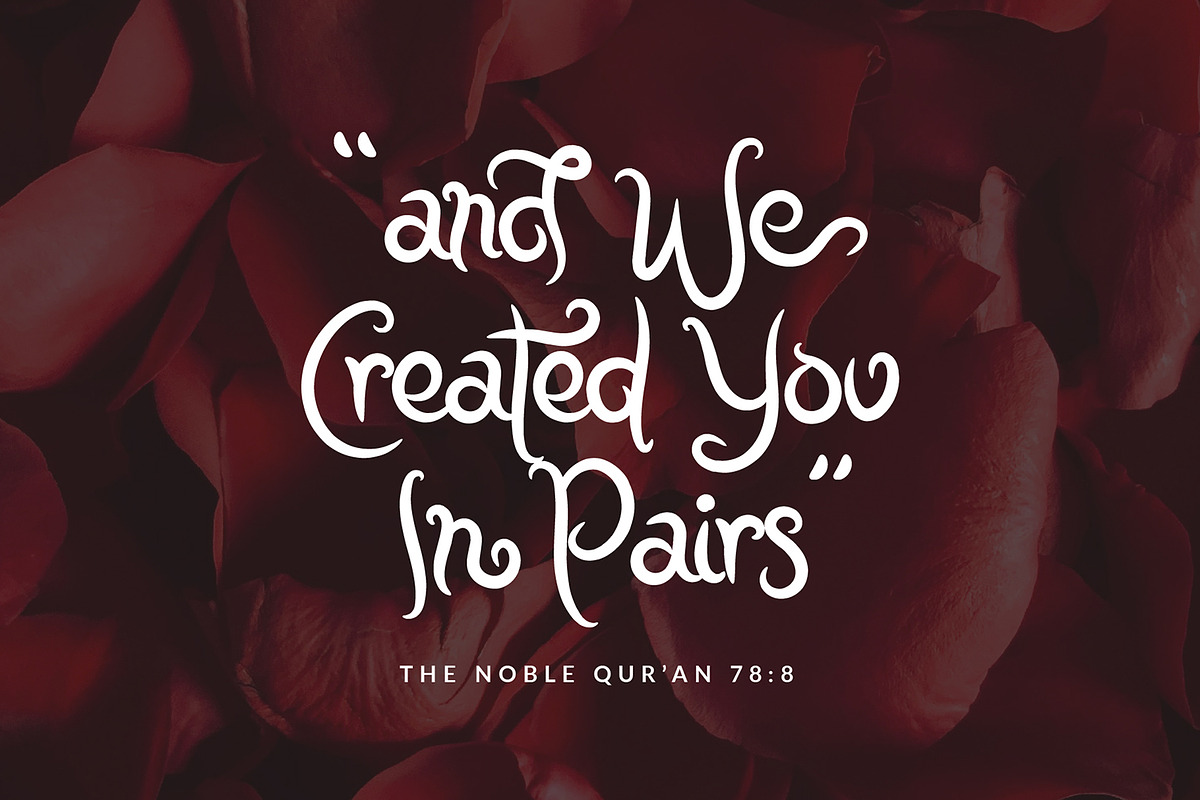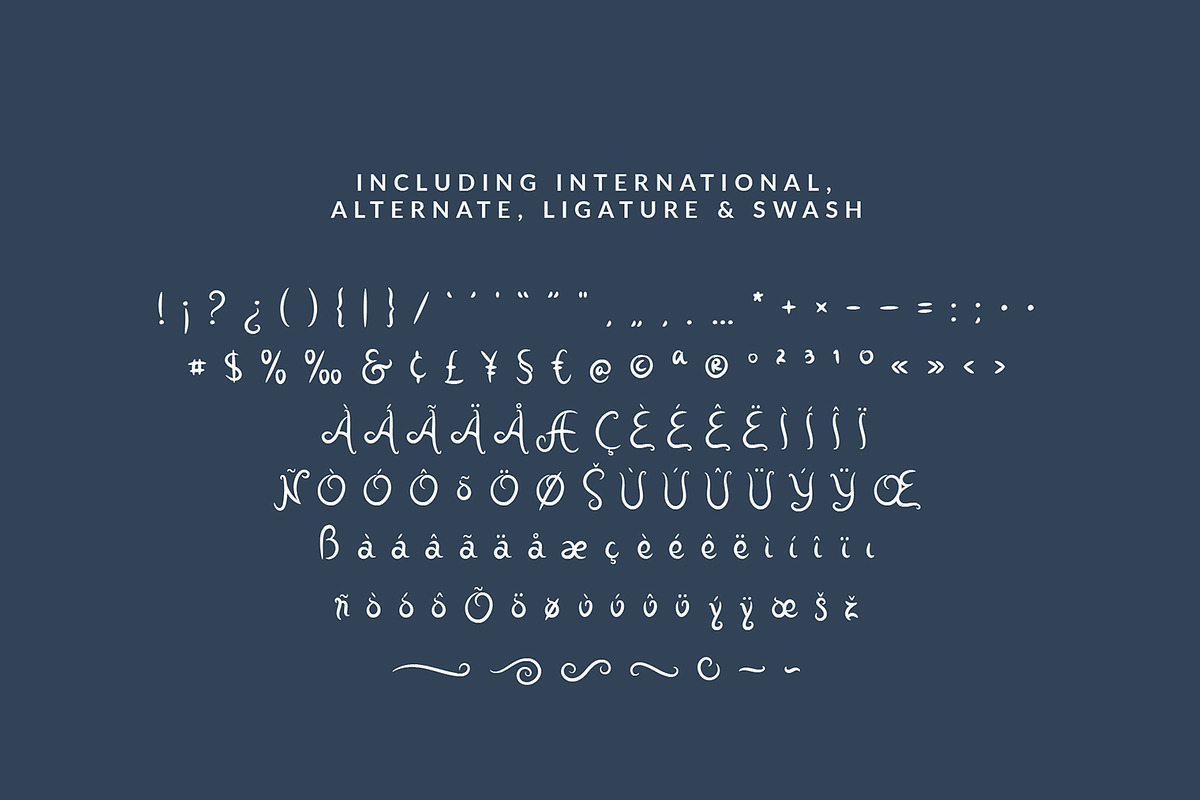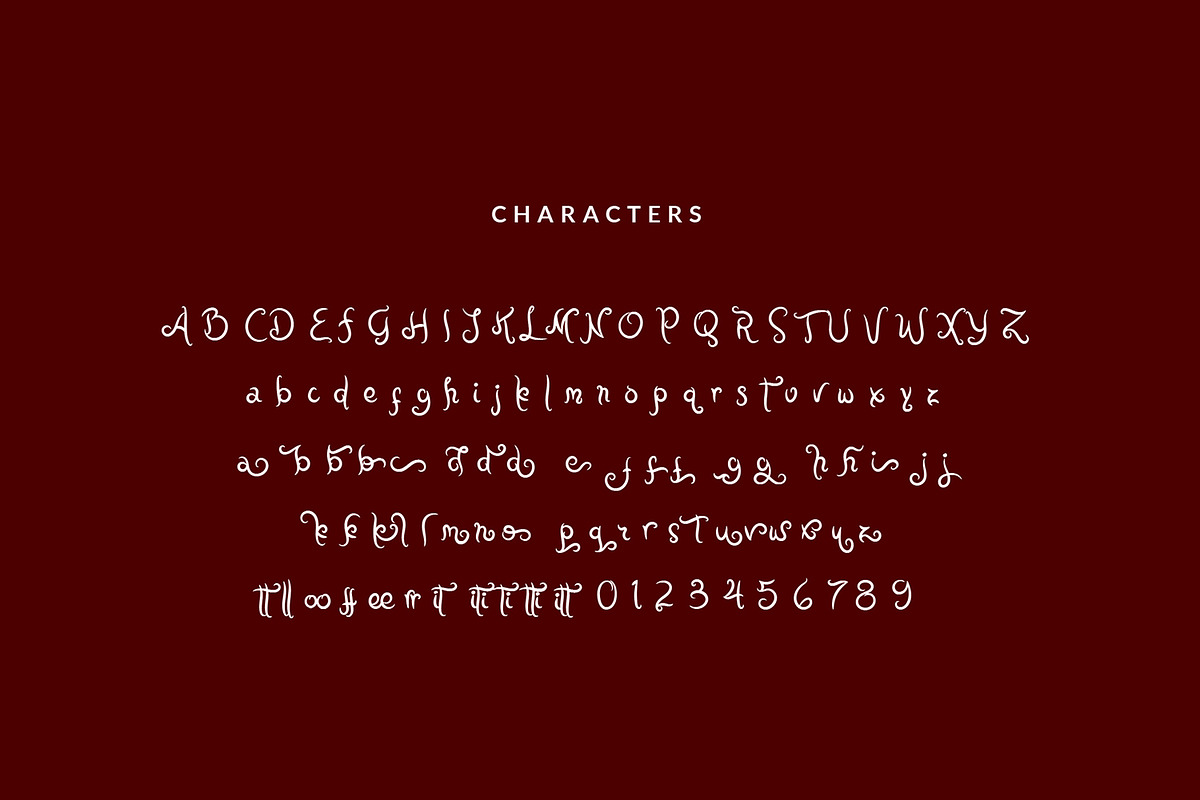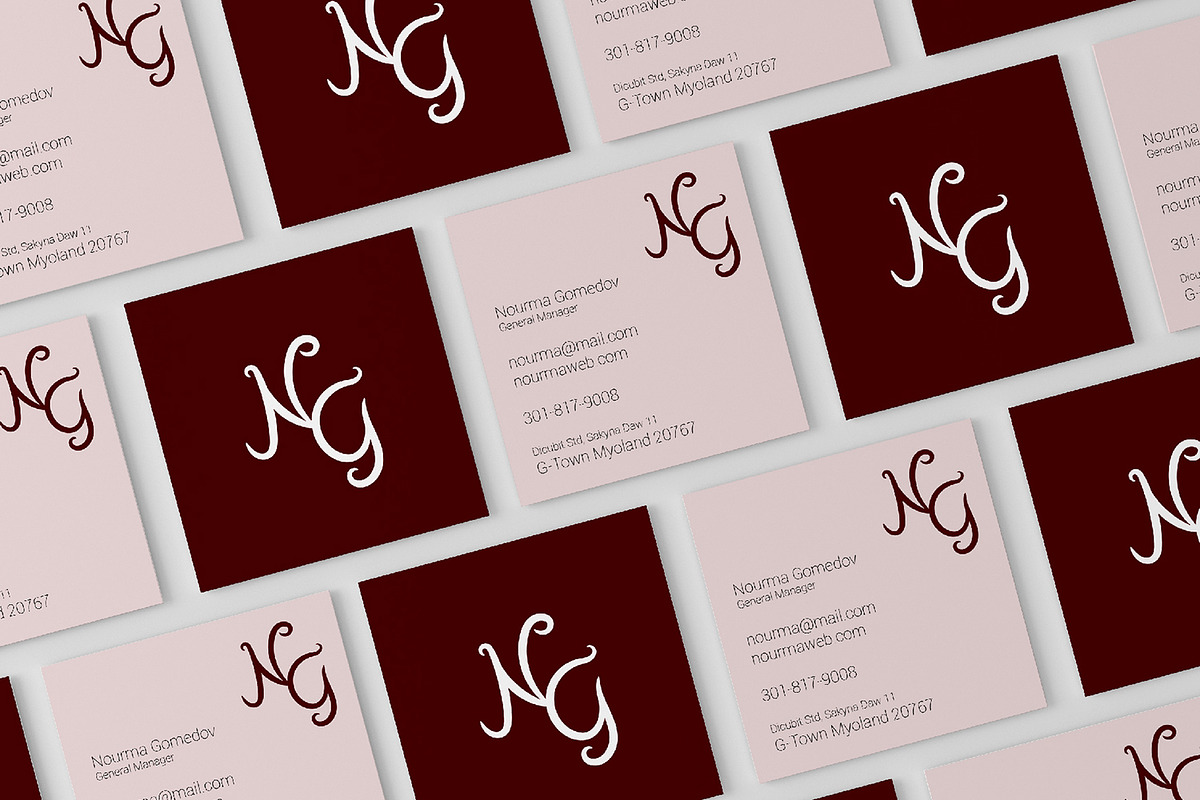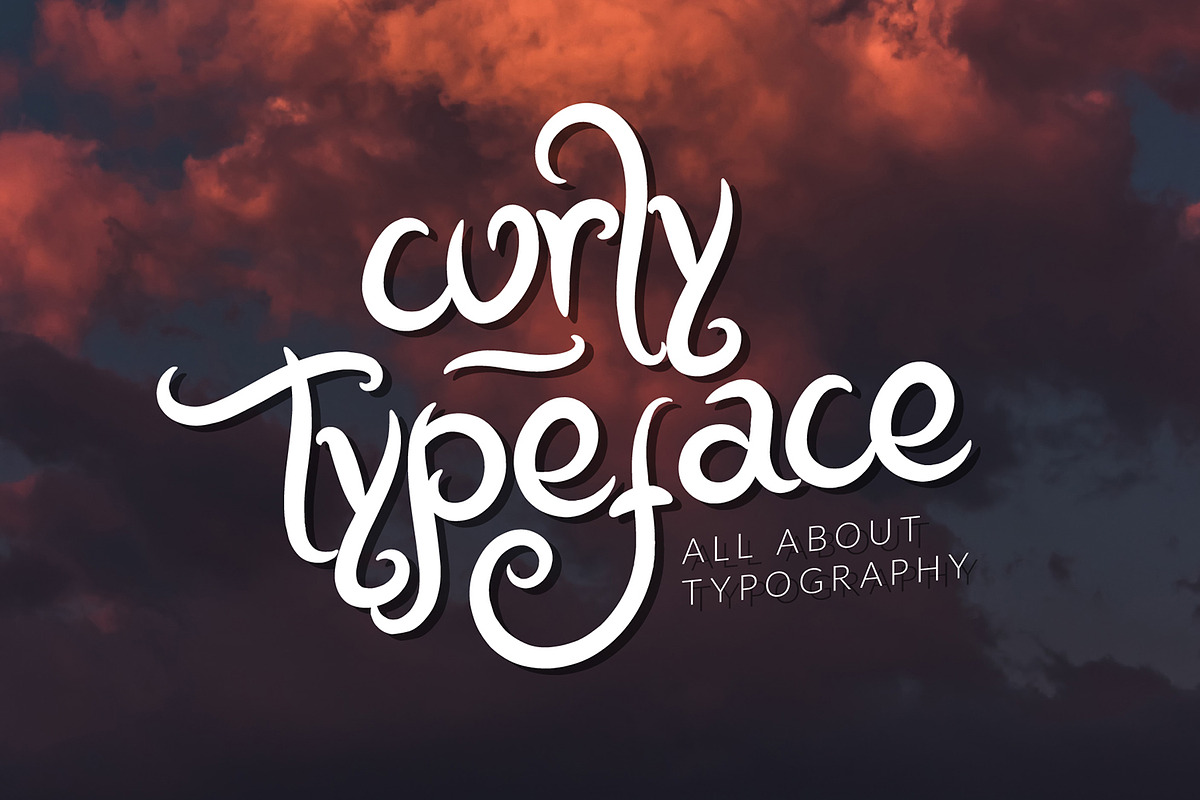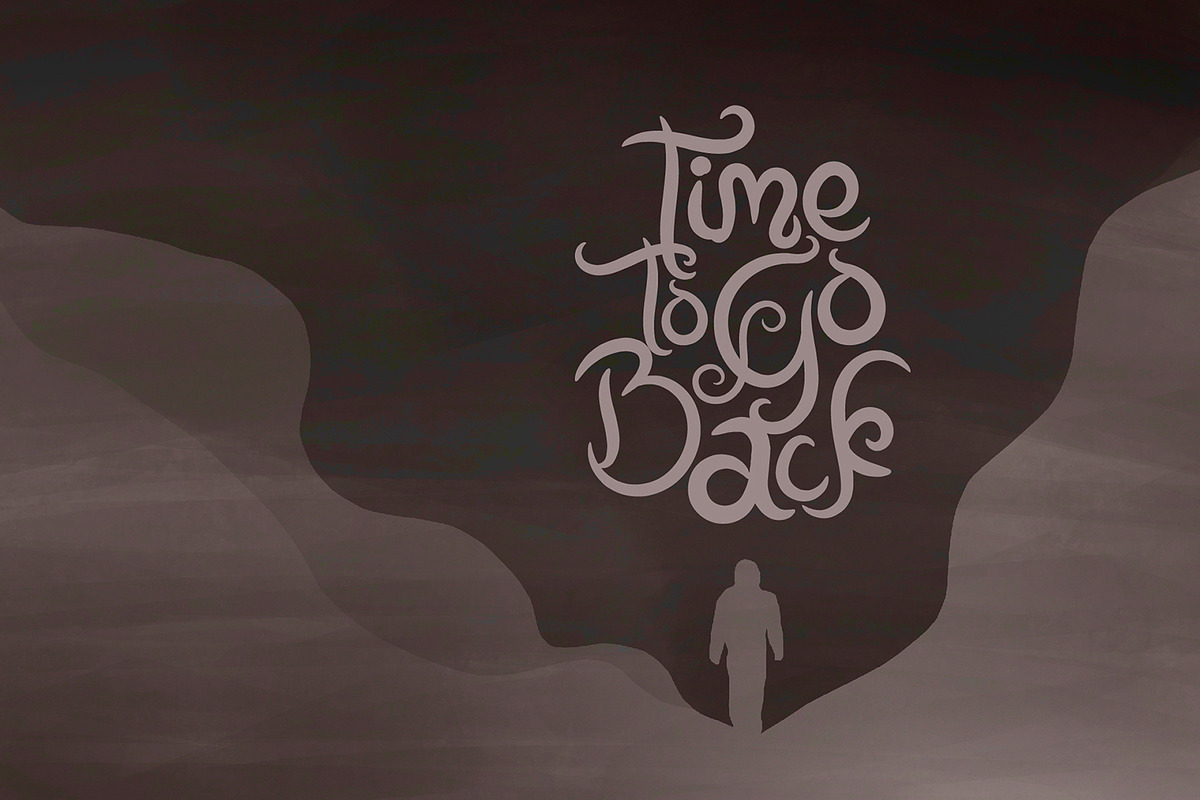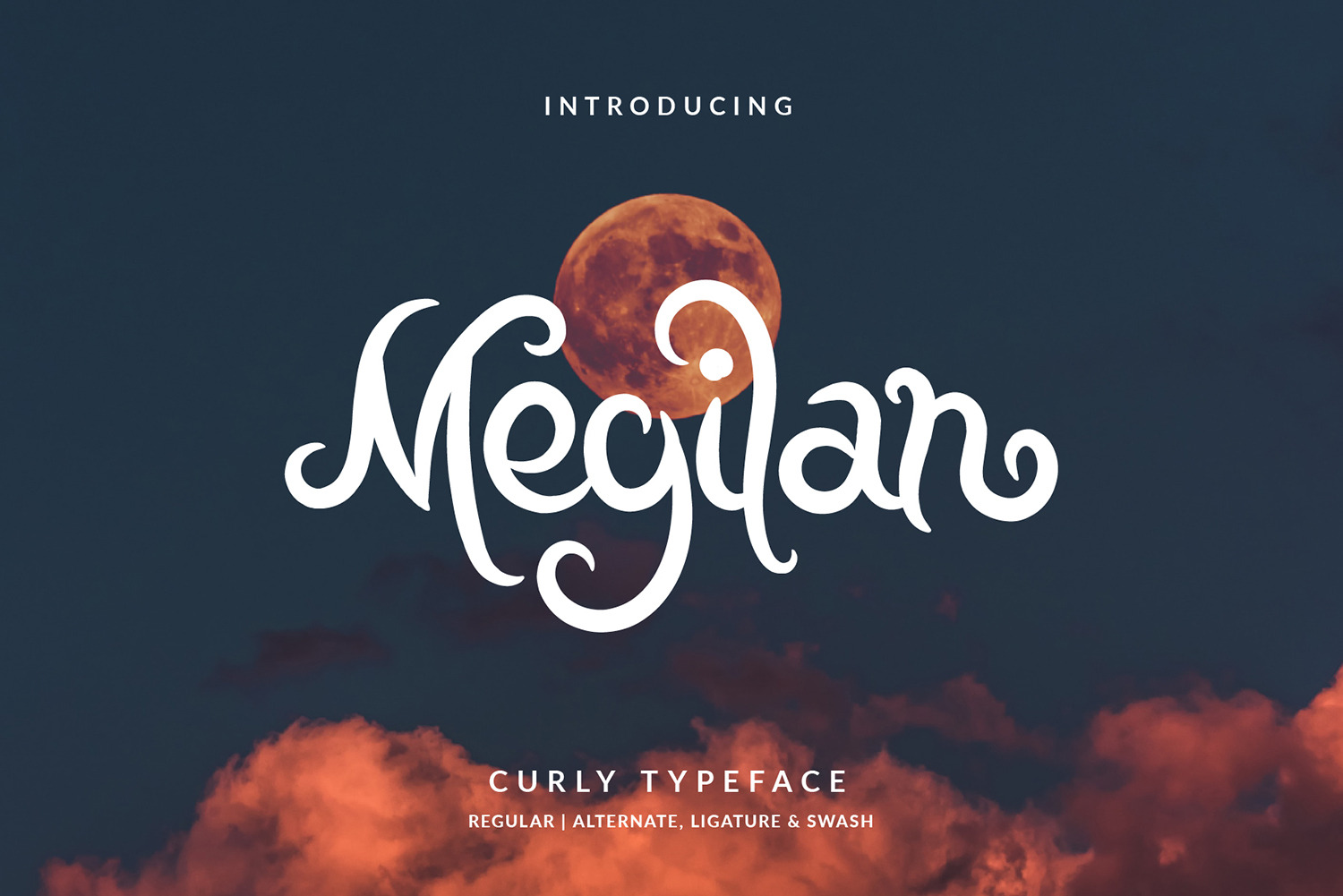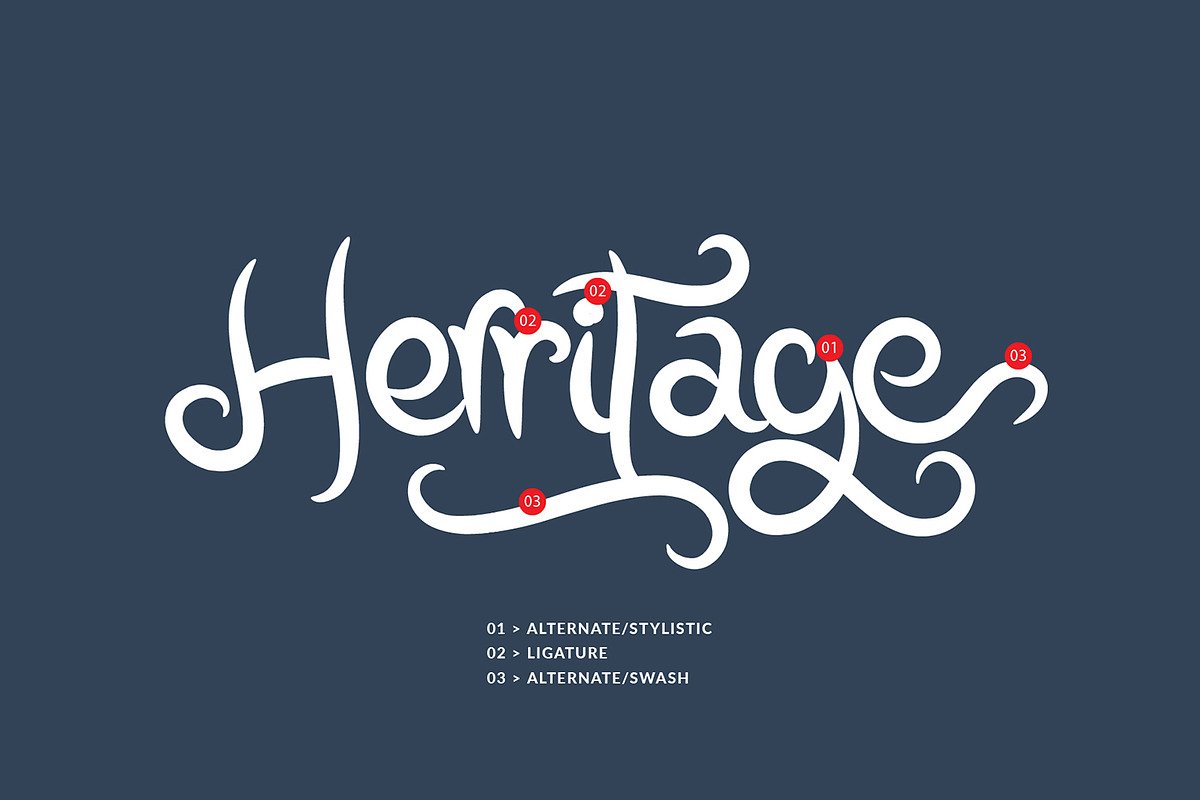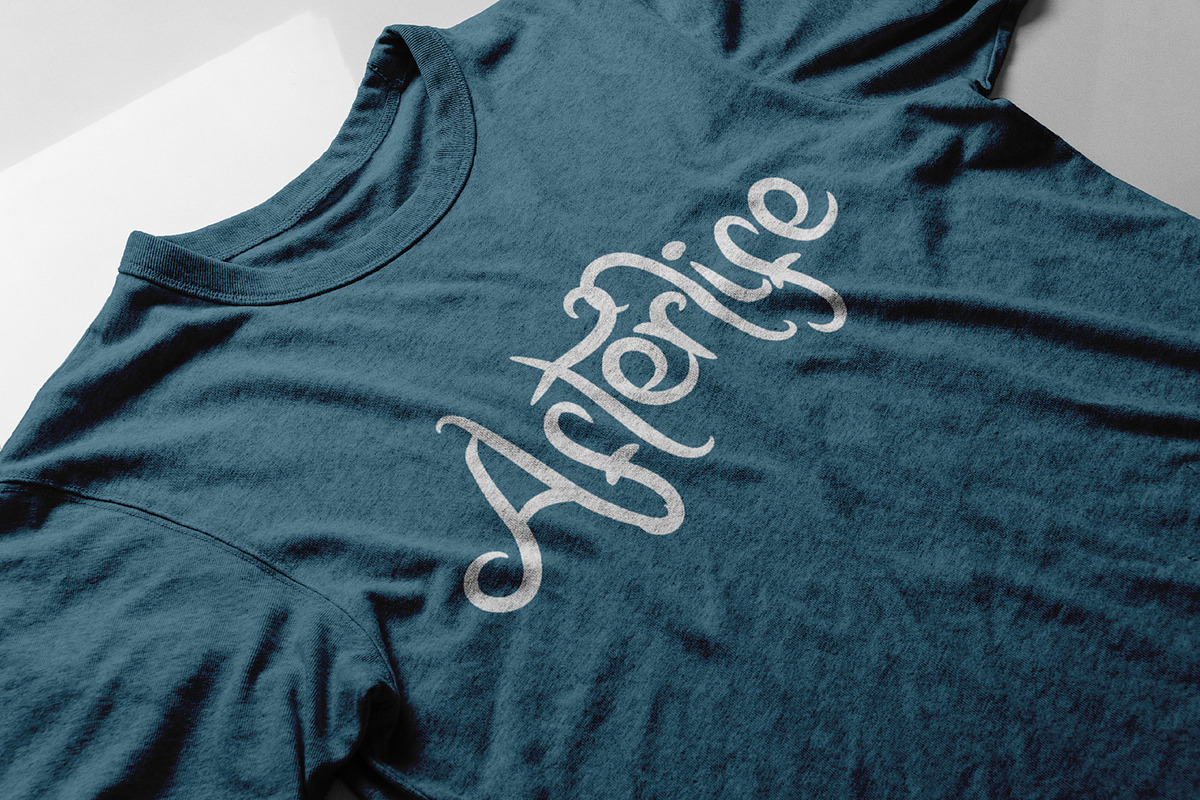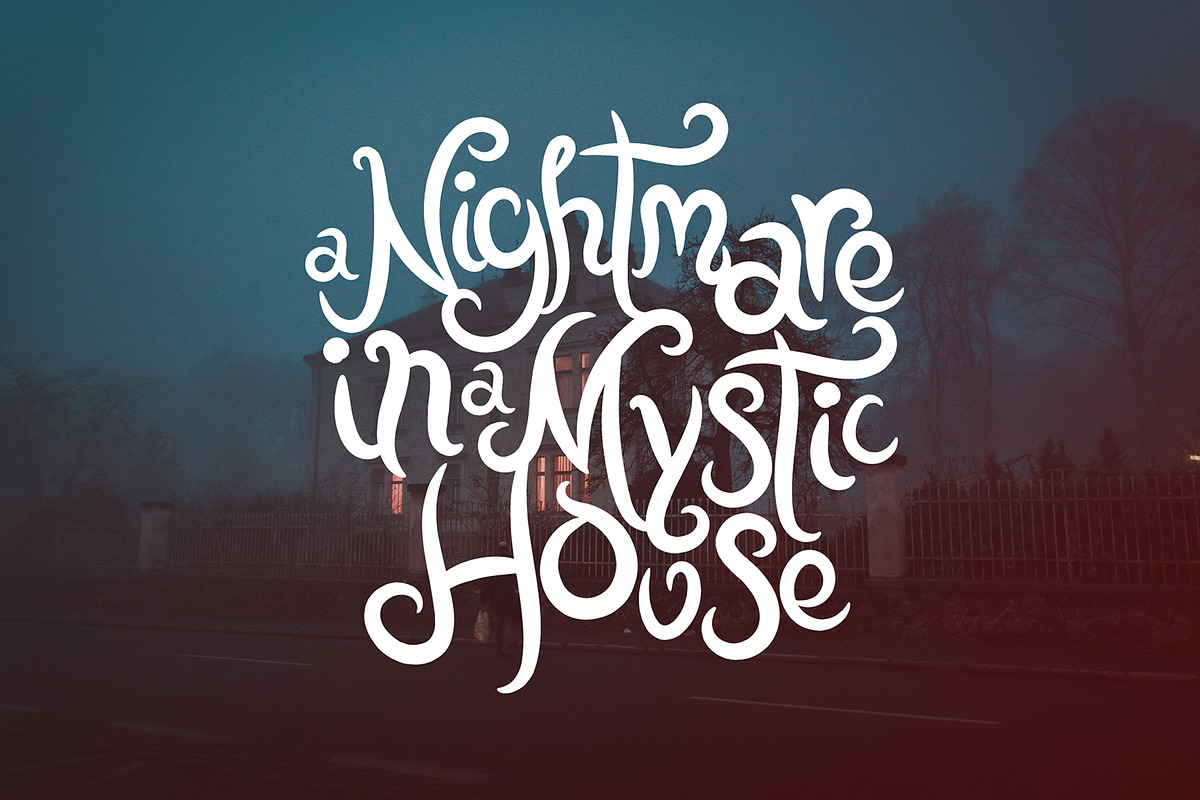
Megilan Curly Handwritten Font
Megilan is a curly typeface/font designed with carefully handcrafted. This perfectly made to be applied in logo or branding, stationery, books, packaging, fashion, magazines, t-shirt, greeting or wedding cards, vintage design, novels, labels and many advertising purposes.
- Number and punctuation
- Alternate/stylistic